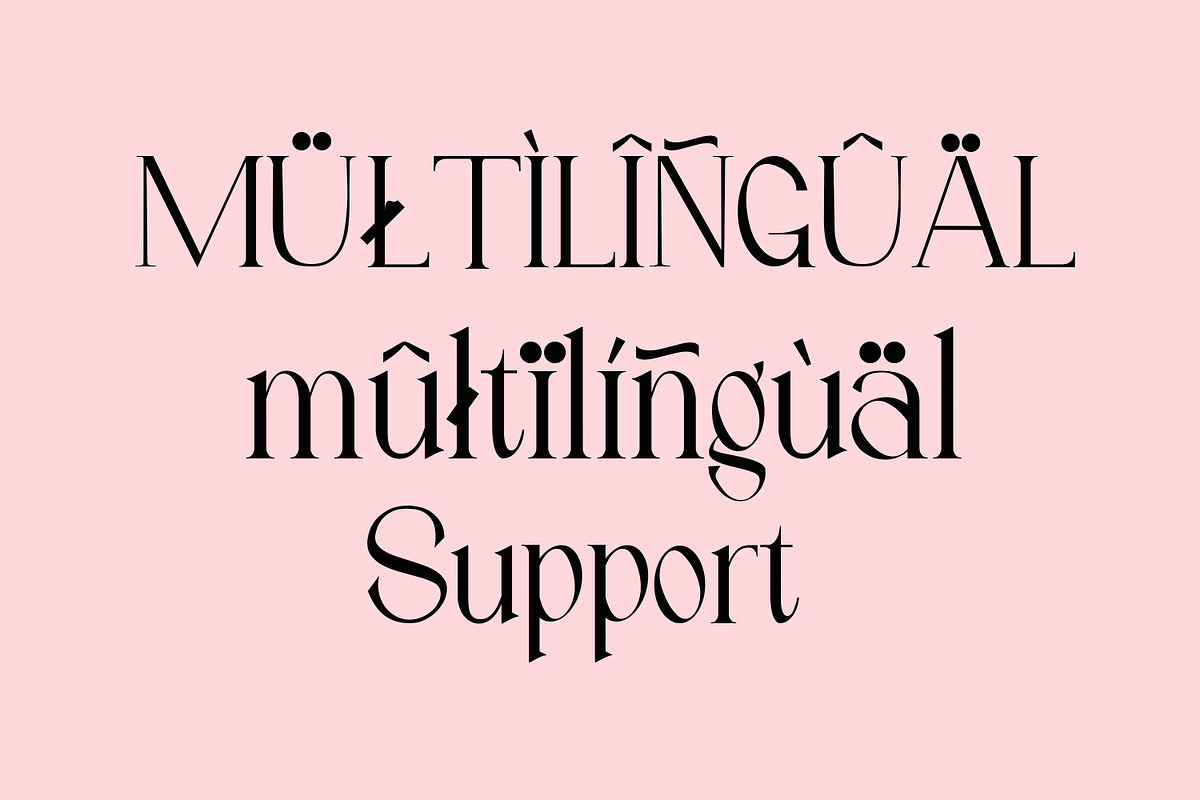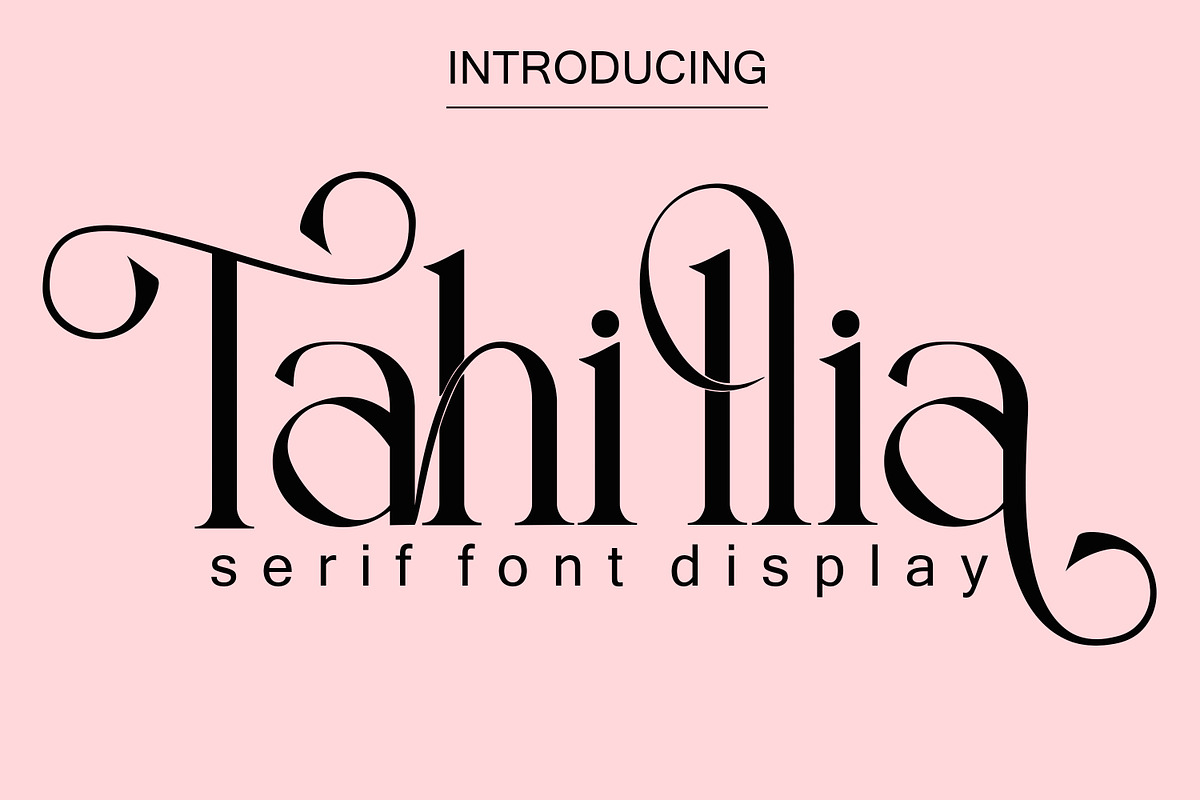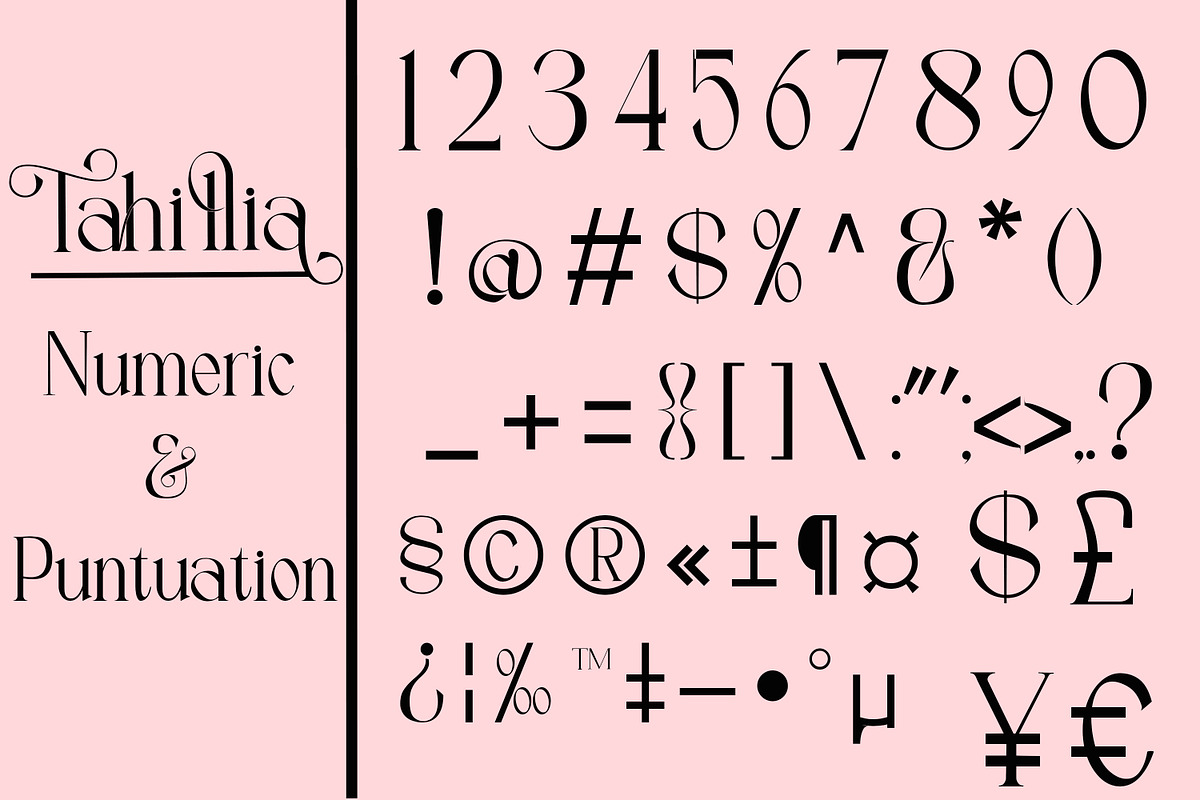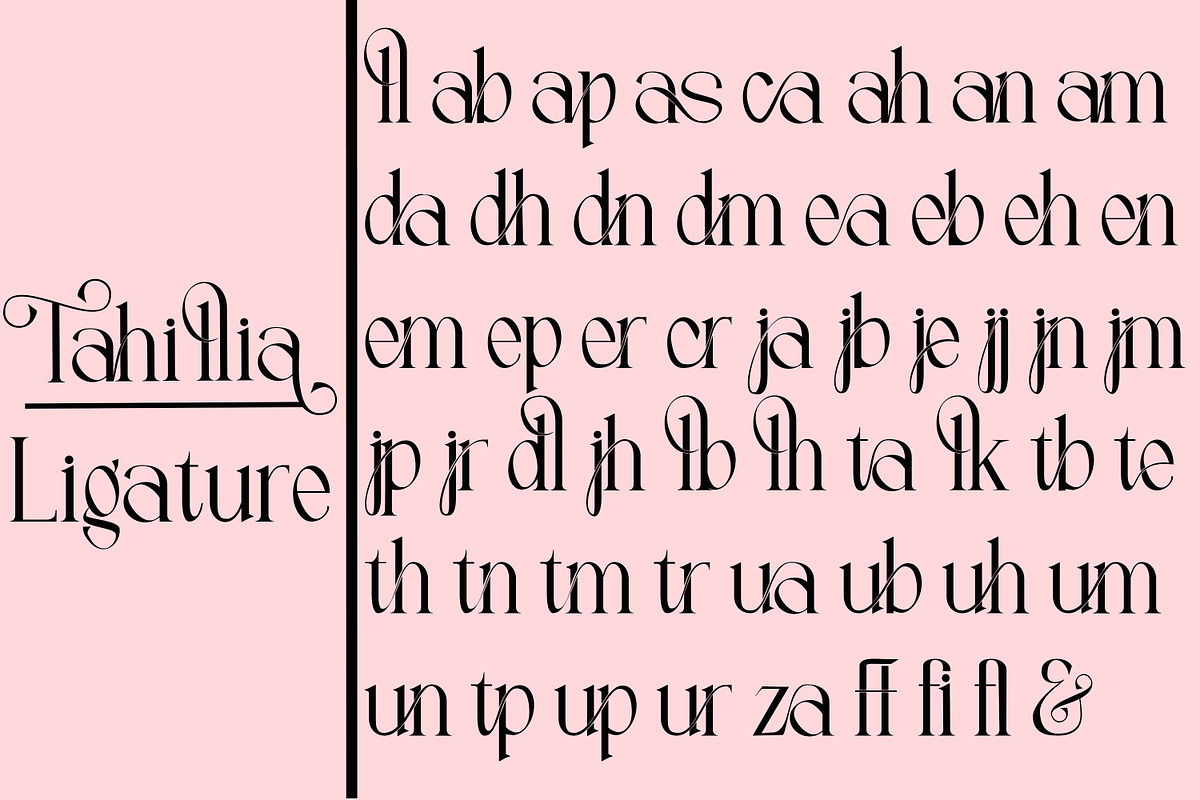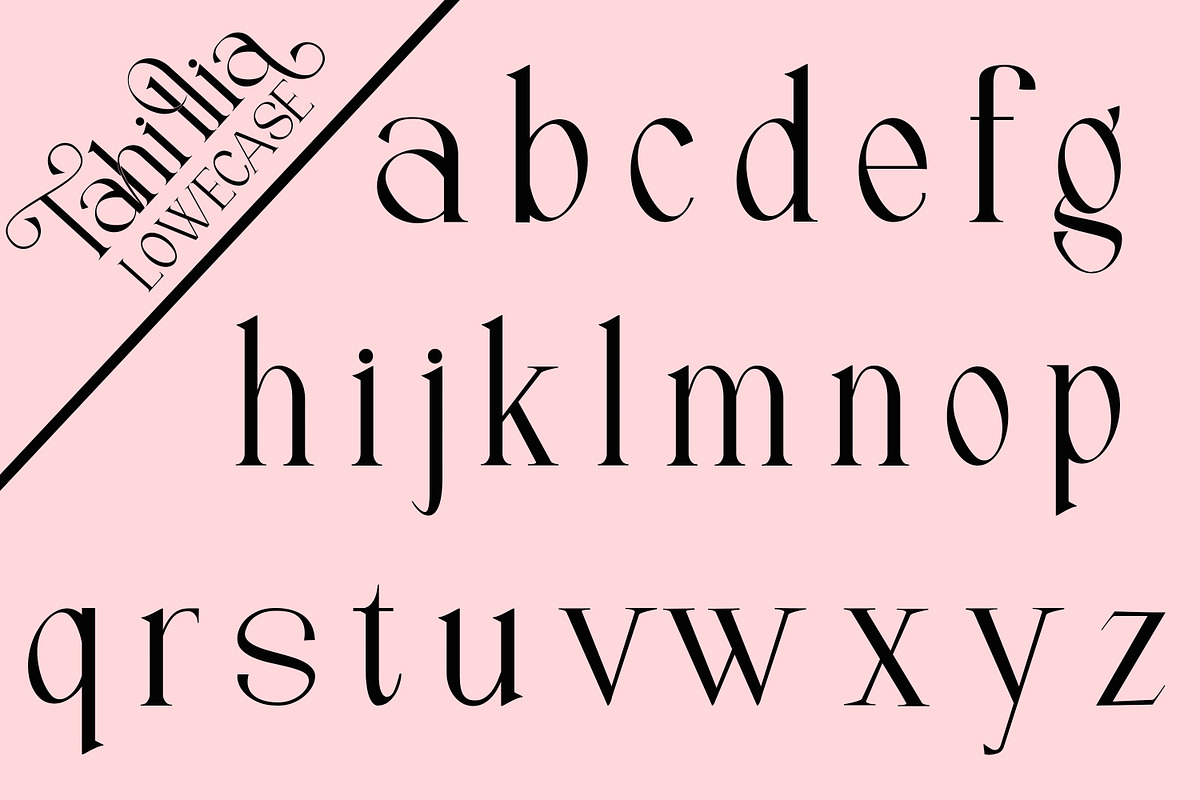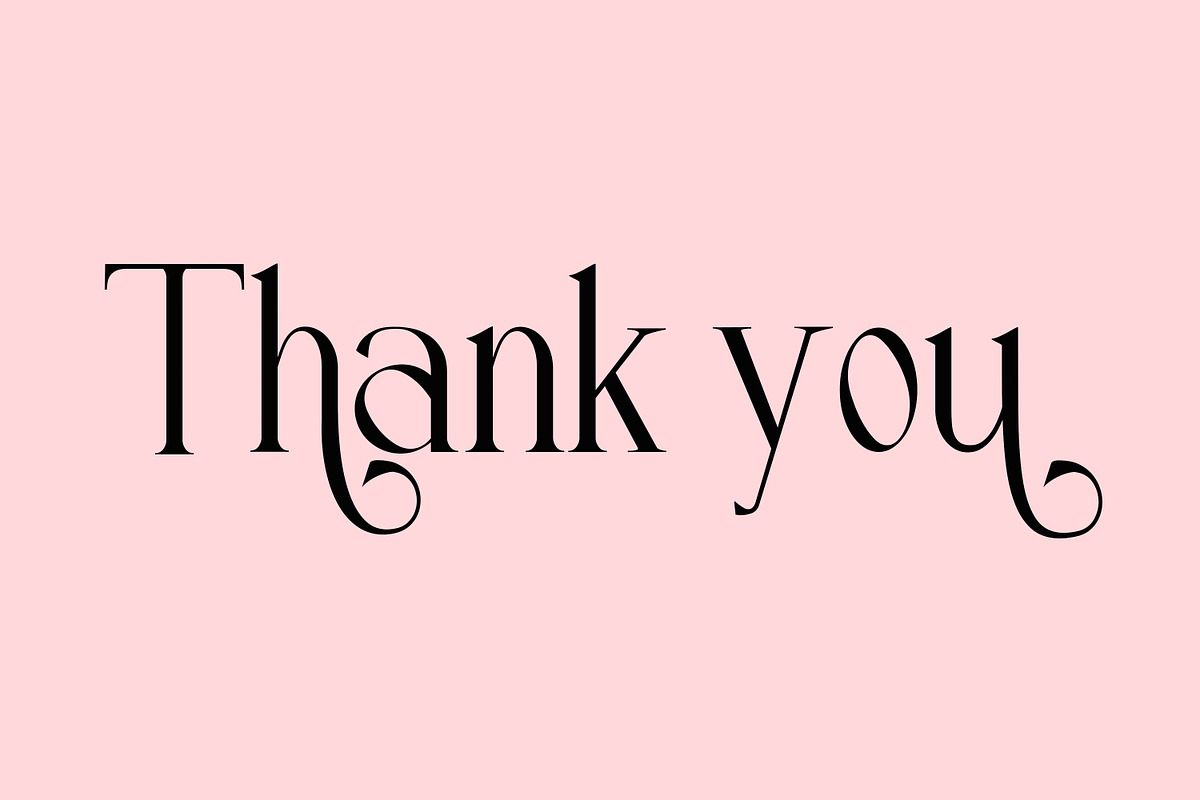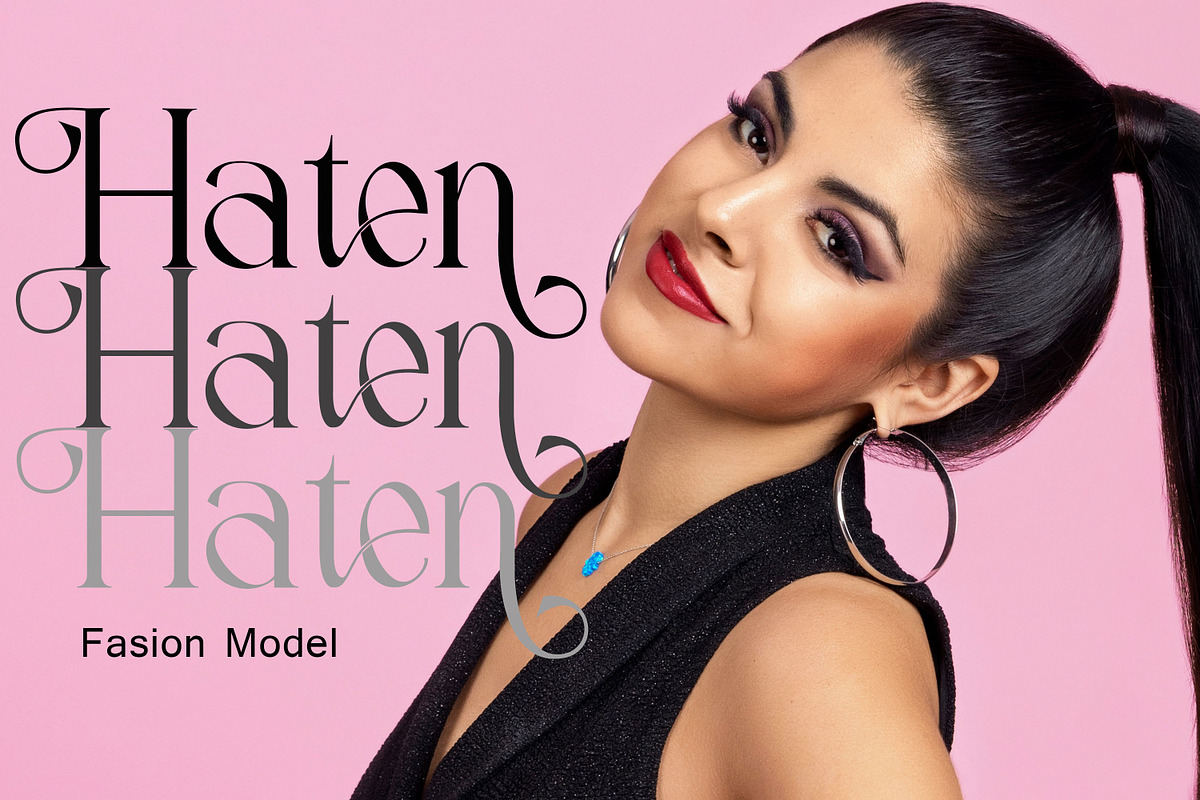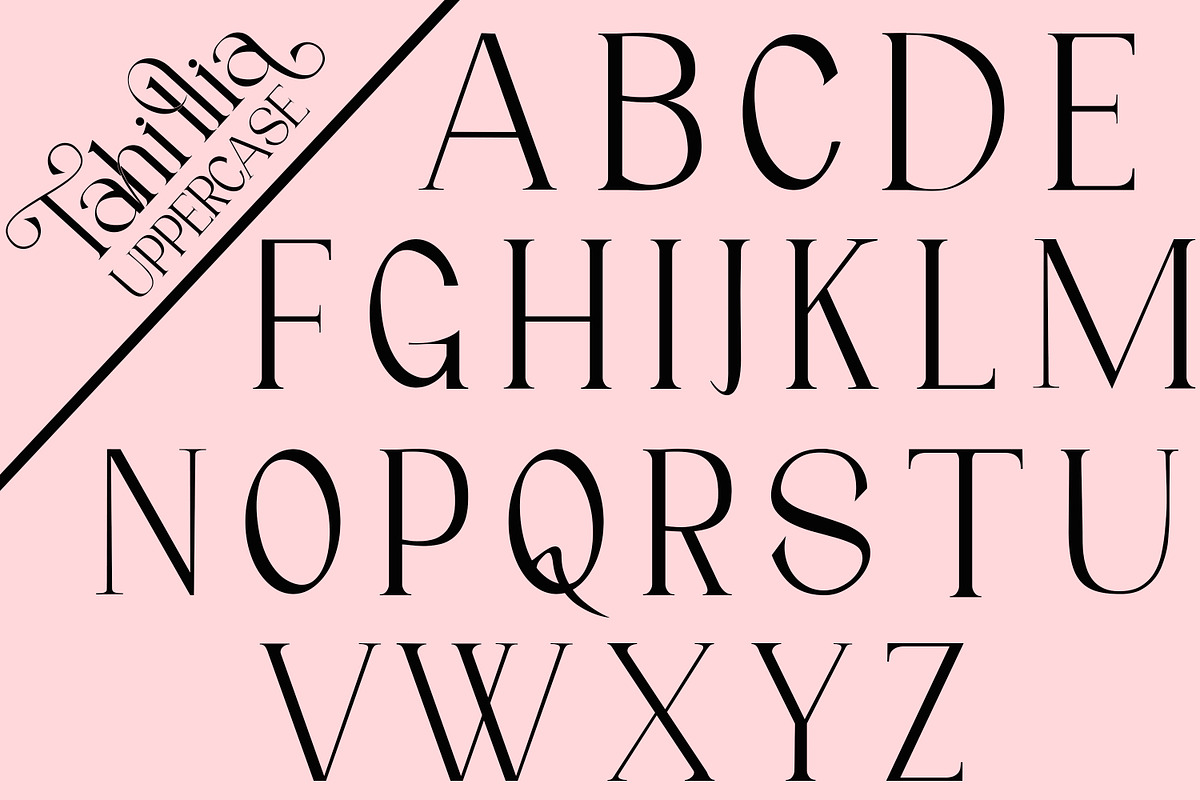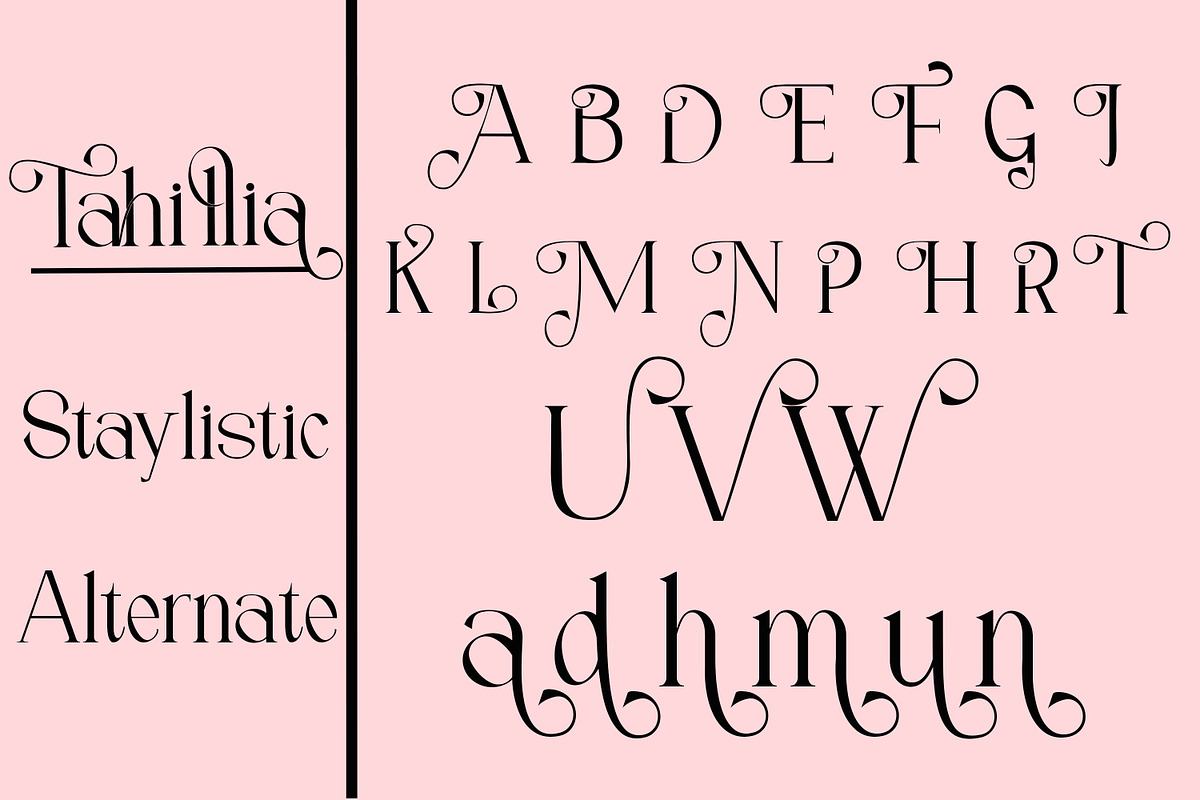
Tahillia
Tahillia Serif is a modern serif font packaged in a modern and classy style, complete with access to your OpenType feature to access a large selection of alternative letters and ligatures, the choice of letters you like from various uppercase and lowercase letters for a luxurious impression and elegant appearance.
A new elegant serif font that will add a touch of luxury and style to your projects. This is a very versatile font that works well in both large and small sizes.
This font is Perfect for branding projects, logo design, clothing branding, packaging, magazine titles, advertisements, t-shirts, postcards, editorials, magazine headlines, product packaging, and displaying masculine and feminine qualities.
this is equipped with full uppercase, lowercase, numbers and punctuation + Multi-language support